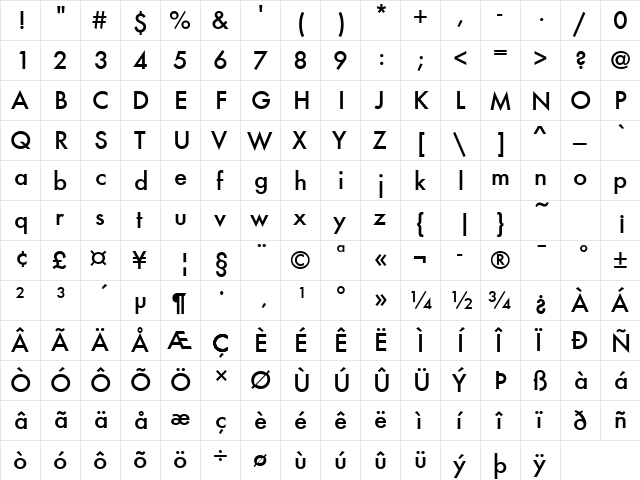
Futura ND Medium
| Foundry | Neufville Digital |
| Designer | Paul Renner (1928) |
Design Context for Futura ND Typeface
Futura ND channels digital-age aesthetics through its sharp, structured letterforms — ideal for brands that want to signal innovation.